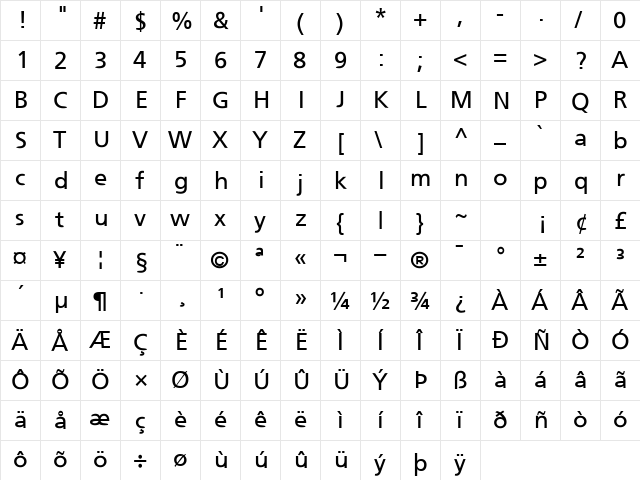
Frobisher Regular
Design Context for Frobisher Typeface
Frobisher takes a measured approach to typography — its balanced proportions and neutral character make it a reliable workhorse for both digital and print work.